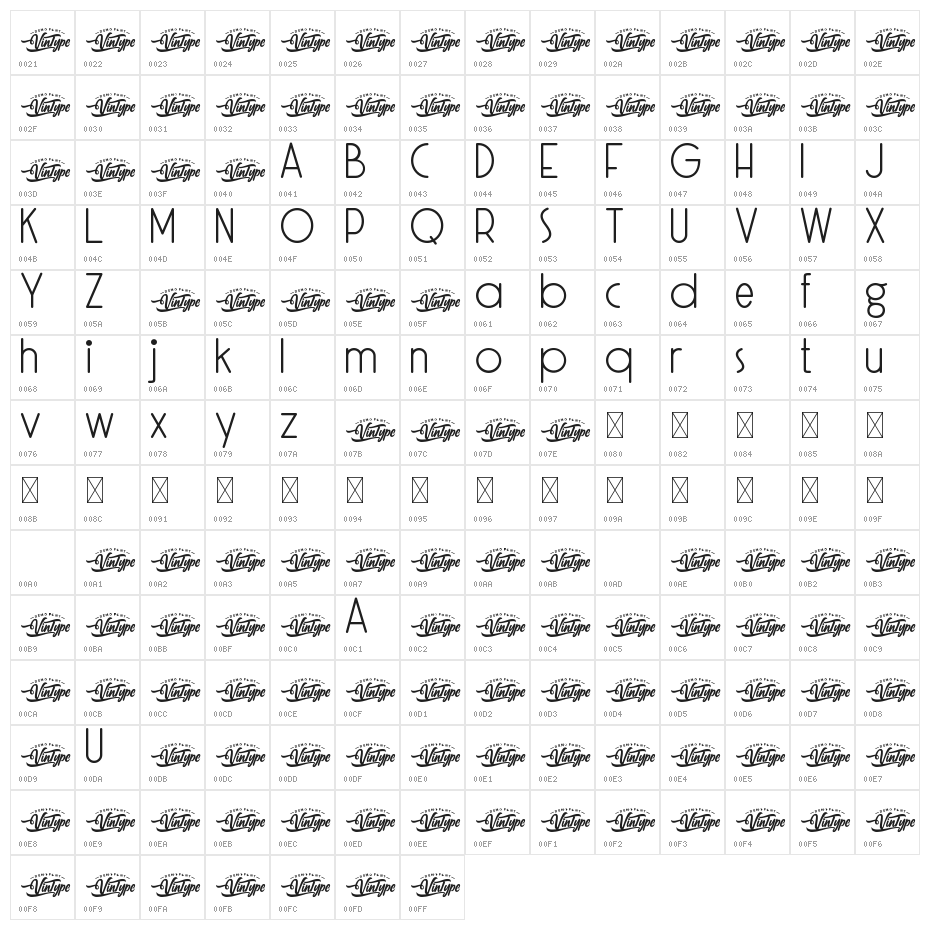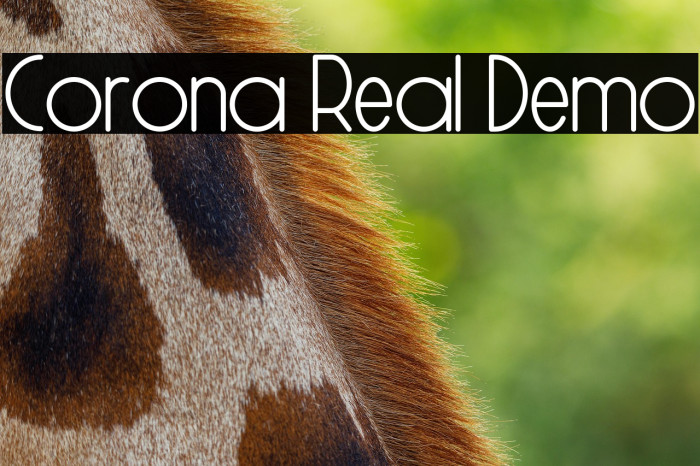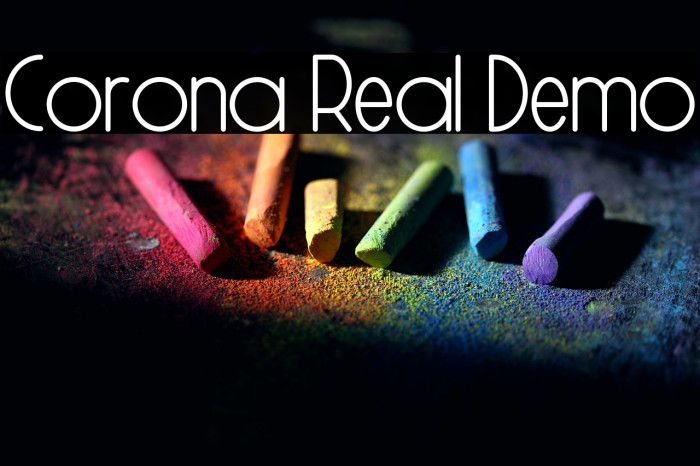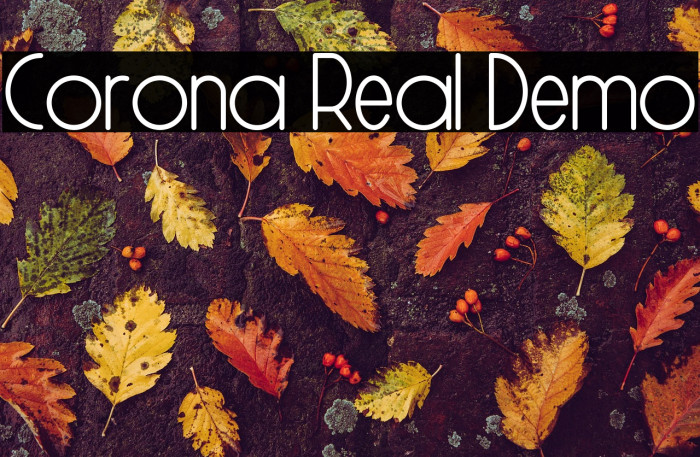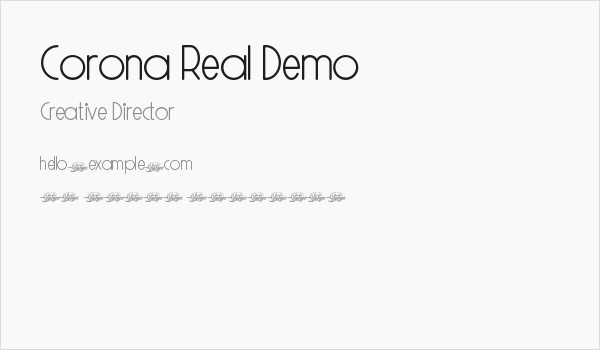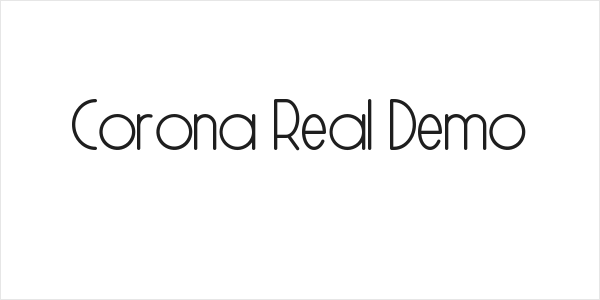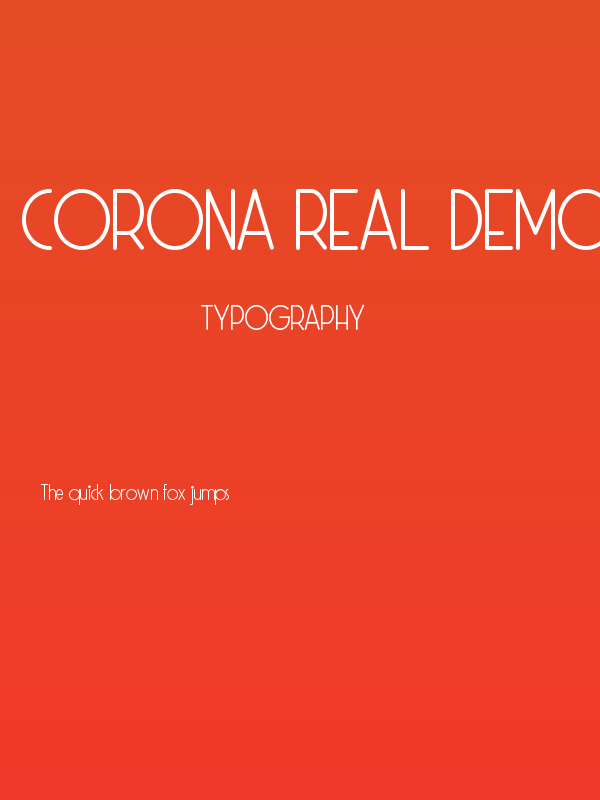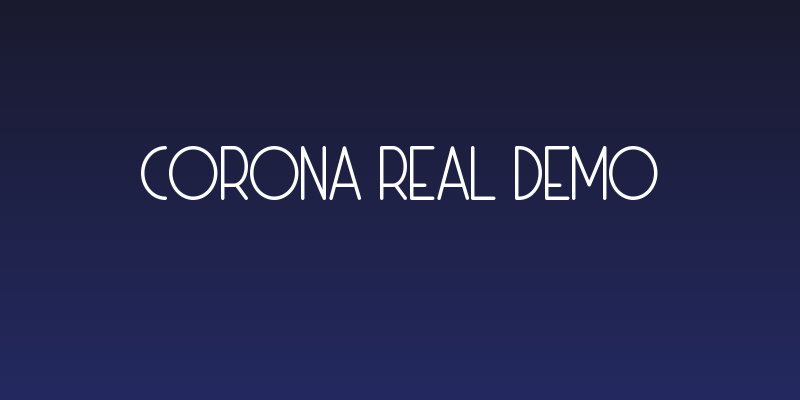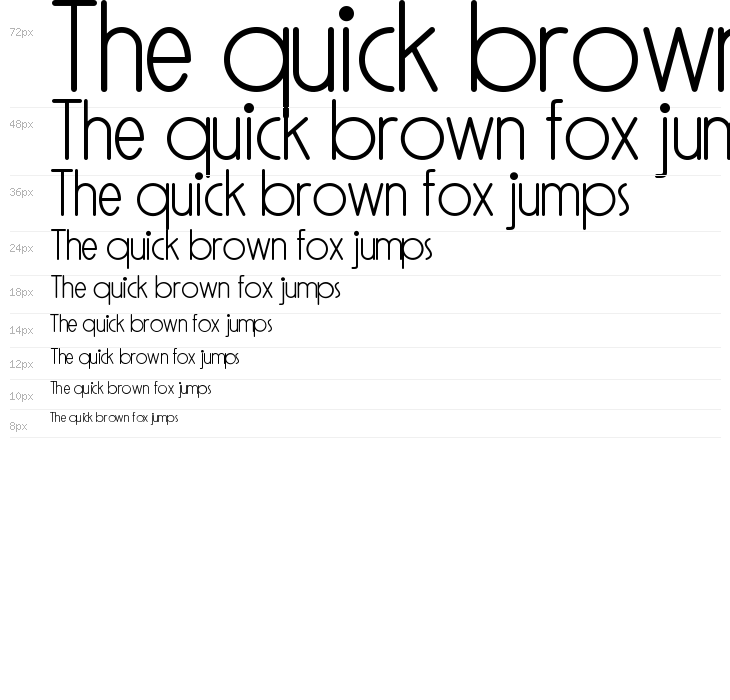
Corona Real Demo Font
Corona Real Demo Description
This font features a sleek, modern design with clean lines and a minimalist aesthetic. The characters are uniformly proportioned, providing a sense of balance and harmony. The uppercase and lowercase letters maintain a consistent style, with rounded edges and smooth curves that enhance readability. The numerals and special characters are designed to match the overall style, ensuring a cohesive look across all text elements. This font's simplicity and elegance make it versatile for various design applications.
| Proposed Projects | Ideal for branding, advertising, web design, and editorial layouts where a modern and clean aesthetic is desired. |